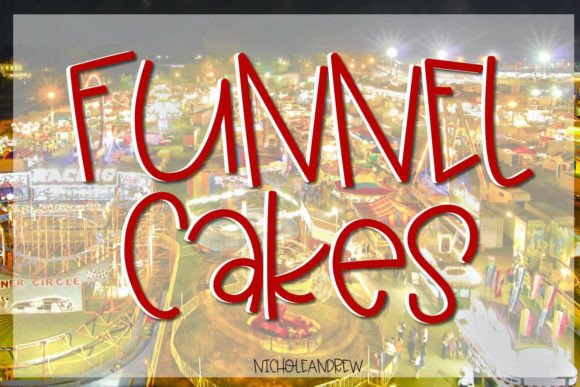
Welcome to the captivating world of Funnel Cakes Font, a charming script typeface that transports your creations to an era of enchanting nostalgia. Crafted by the renowned NicholeAndrew, Funnel Cakes boasts a whimsical touch that effortlessly adds character to any design.
With its optimized nodes specifically designed for precise cutting with crafting machines, Funnel Cakes unlocks endless creative possibilities. Unleash your imagination and adorn cards, water bottles, and more with its playful presence. This versatile font lends an air of authenticity to invitations, announcements, and branding materials alike.
Dive into the realm of Funnel Cakes and discover a font that stirs emotions and captures hearts. Its endearingly imperfect strokes evoke a sense of warmth and nostalgia that resonates with discerning audiences. Each letter dances across the page, carrying with it a touch of whimsy that transforms ordinary text into extraordinary expressions.
Whether you're an avid crafter, a passionate designer, or simply a lover of unique fonts, Funnel Cakes Font is a must-have addition to your creative toolkit. Its versatility and charm make it an indispensable companion for those seeking to elevate their projects with a touch of timeless elegance.
Embrace the enchanting allure of Funnel Cakes Font and embark on a creative journey that will leave a lasting impression.